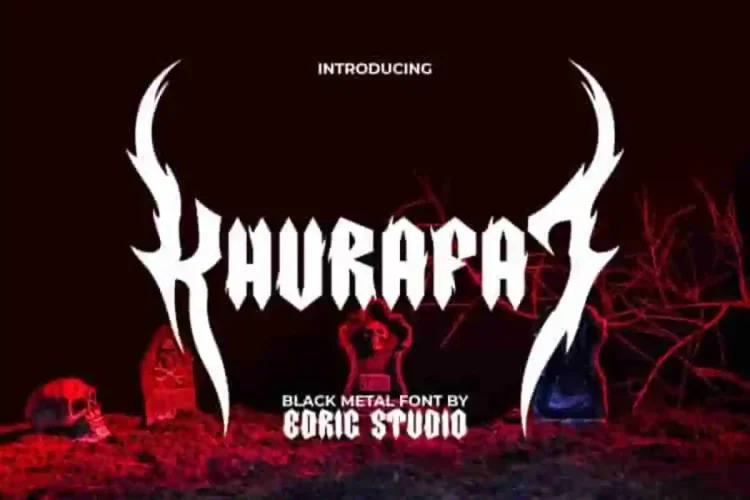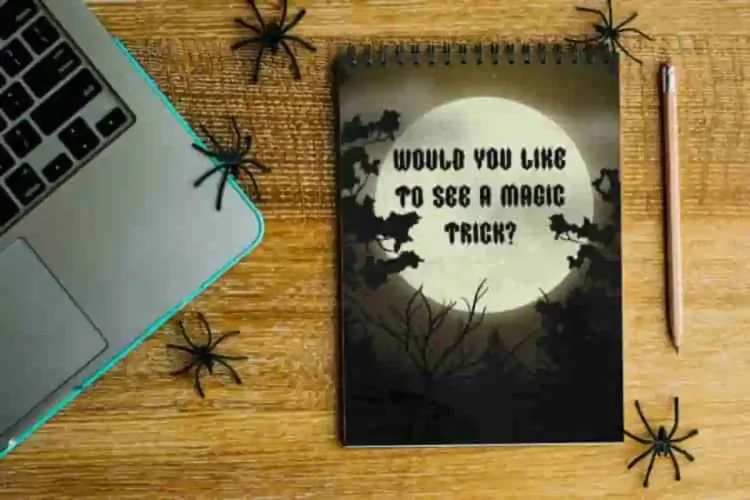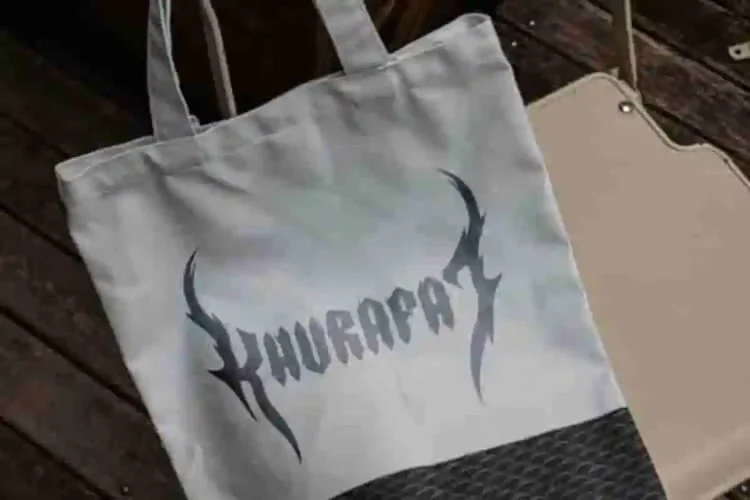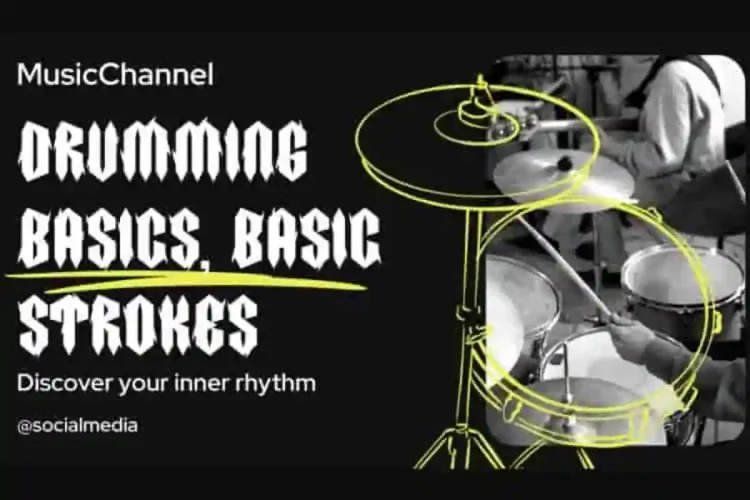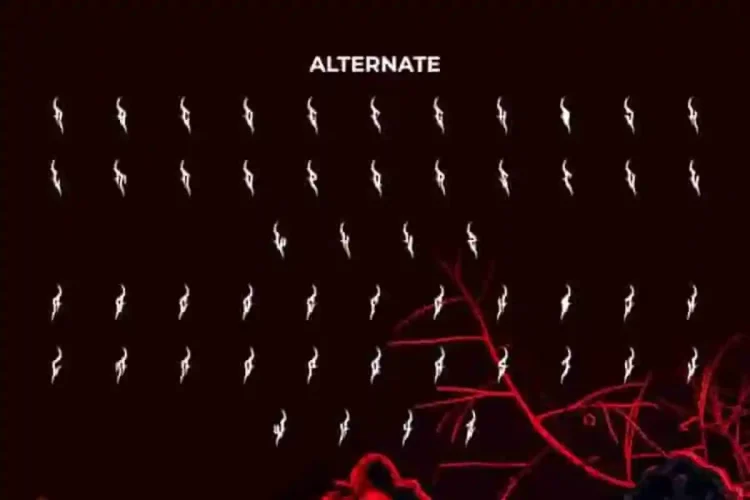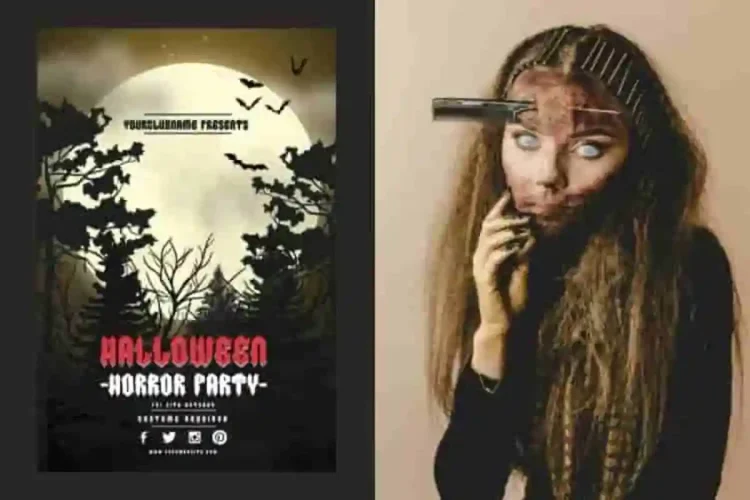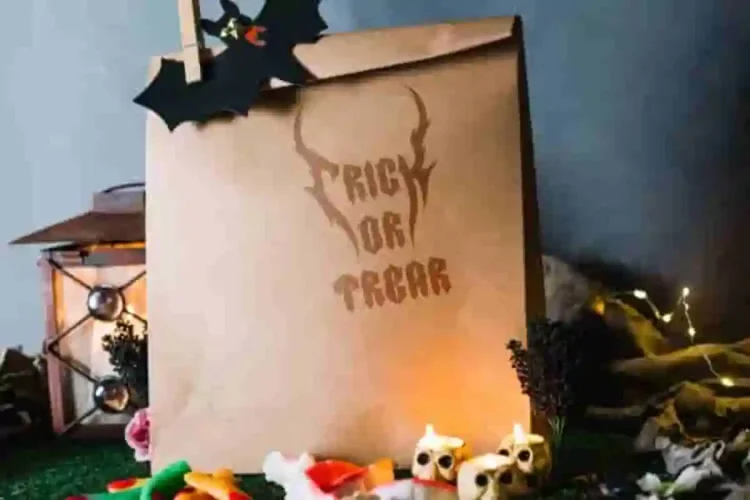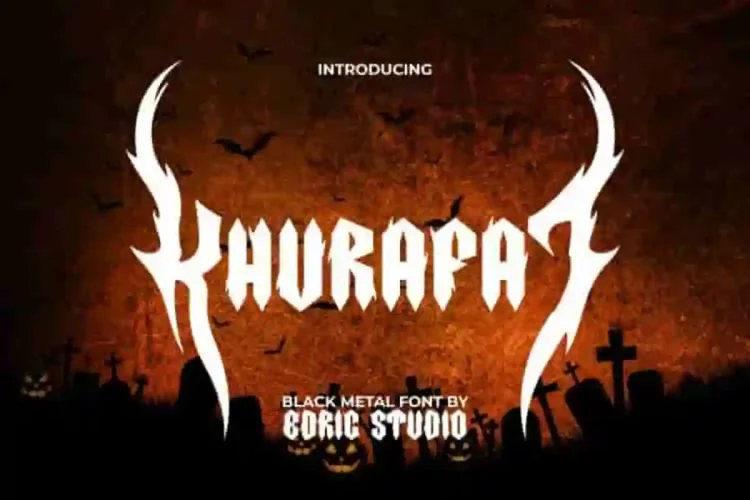
Khurafat Display Font a modern horror black metal display typeface crafted for bold creatives. This creates a typeface that aligns with the ferocity and energy of the metal genre. Inspired by the dark aesthetics of black metal, this font delivers sharp edges, aggressive strokes, and a powerful presence that instantly commands attention.
Khurafat Blackletter Font this versatile display font includes a complete set of ALL CAPS for both uppercase and lowercase letters, along with Numbers, Punctuation, Symbols, and Alternates. Make sure your design stands out with its extensive character set. Explore the many options to truly customize your text and make it unique to you.
Khurafat Font a playful typeface with unique decoration in each character. Combine different characters for a bespoke, handcrafted feel. It’s tested to work well in the Adobe Apps (Illustrator, Adobe InDesign, Adobe Photoshop) even work on Microsoft Word. All of these characters are available through the glyph panel, moreover each letter has its own unicode (PUA) so you can access all the characters easily.